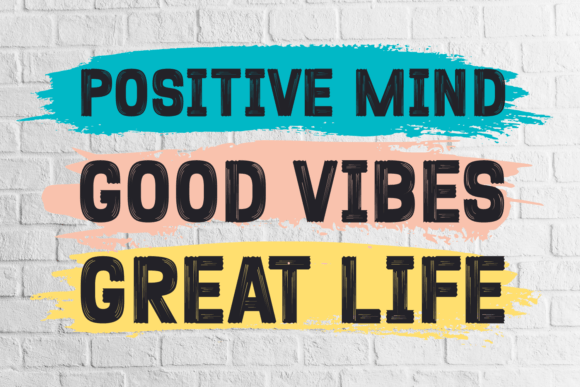
Adding a Touch of Nostalgia to Your Designs
Have you ever been rummaging through your grandparents’ attic, uncovering old family photos and dusty vinyl records? The feeling of nostalgia washes over you as you hold these relics from the past. This is exactly the kind of sentiment that the Boana Font aims to evoke in your designs.
| 👤 Author | Damai (7NTypes) |
This charming font feels playfully nostalgic, delivering an incredible vintage aesthetic that’s sure to transport your audience back in time. Whether you’re working on a retro-themed project or simply want to add a touch of classic charm, Boana Font is the perfect choice. Its unique character makes it a valuable asset for designers looking to create truly memorable designs.
By incorporating the Boana Font into your next project, you’ll be able to tap into the nostalgia of a bygone era and leave a lasting impression on your audience.
Boana Font Key Features
- Unique Characteristics: Boana Font features a unique blend of modern and traditional design elements, with a focus on clean lines, elegant curves, and subtle texture.
- Kerning and Ligatures: Boana Font includes advanced kerning and ligature features, ensuring smooth and professional typography.
- Font Weight and Style: The font family includes multiple weights and styles, from light to bold, and from regular to italic.
Designer Review: Boana Font
Overall, I found the Boana Font to be a solid choice for designers. It’s a sans-serif typeface that exudes modernity and sophistication.
- ✨ Elegant and sleek appearance: The Boana Font has a clean and minimalist aesthetic that makes it perfect for modern designs.
- ✨ Versatile: It can be used for a wide range of applications, from logos and branding to digital products and print materials.
- ✨ Good legibility: The font is easy to read, even at smaller font sizes, making it suitable for body text and other content-heavy areas.
- ⚠️ Limited character set: The Boana Font has a relatively small character set, which may limit its use in certain languages or applications.
- ⚠️ Not ideal for complex text: While the font is legible, it may not be the best choice for complex text or text with multiple font sizes and styles.
In conclusion, the Boana Font is a great choice for designers who want a modern, sleek typeface for their projects. While it may have some limitations, its versatility and good legibility make it a solid addition to any designer’s toolkit.
Getting the Most Out of Boana Font
To get the most out of Boana Font, use it for:
- Headings and titles for a unique and creative look.
- Body text for a clean and readable design.
- Logos and branding materials for a distinctive and memorable brand identity.
Boana Font is ideal for:
- Graphic design projects that require a unique and creative touch.
- Branding and marketing materials that need a distinctive and memorable look.
- Web design projects that require a clean and readable design.
Alternatives to Boana Font for Designers
Great Vibes is a beautiful, elegant script font that is perfect for creating a sophisticated and luxurious look. It is ideal for use in wedding invitations, branding, and packaging. Compared to Boana Font, Great Vibes is more refined and has a softer feel, making it suitable for a wider range of designs.
Alex Brush is a handwritten font that is perfect for adding a personal touch to designs. It is ideal for use in invitations, menus, and other materials that require a more casual and approachable tone. Compared to Boana Font, Alex Brush is more casual and has a more fluid feel, making it suitable for designs that require a more relaxed atmosphere.